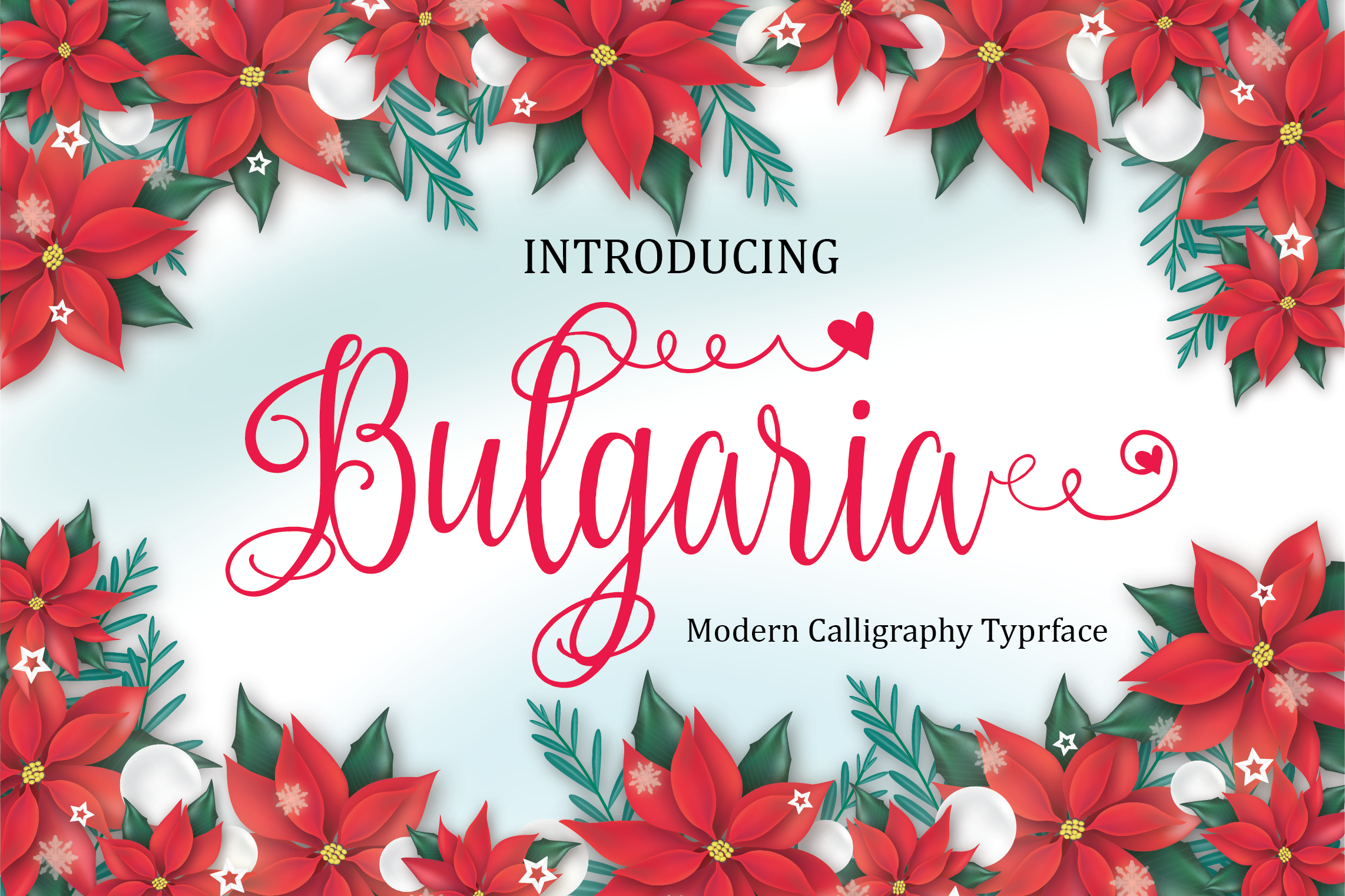
Bulgaria Script Font
About Bulgaria Script Font
Bulgaria is an adaptable, lightweight script. You can use it for a large range of projects, and it works well in both modern and vintage sensibilities.
Romantic and energetic, Bulgaria is a great design asset to add to your font collection.